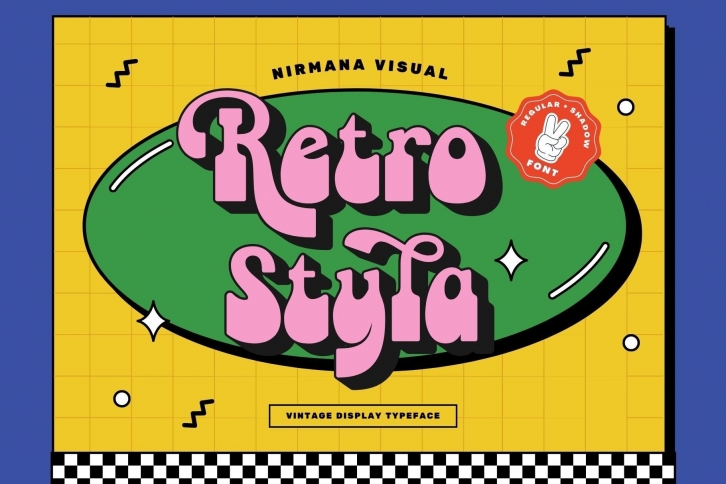
Retro Styla is a cool and fun display font inspired by the ’70s design era. This typeface offers beautiful typographic harmony for a diversity of design projects, including logos & branding, social media posts, advertisements & product designs.